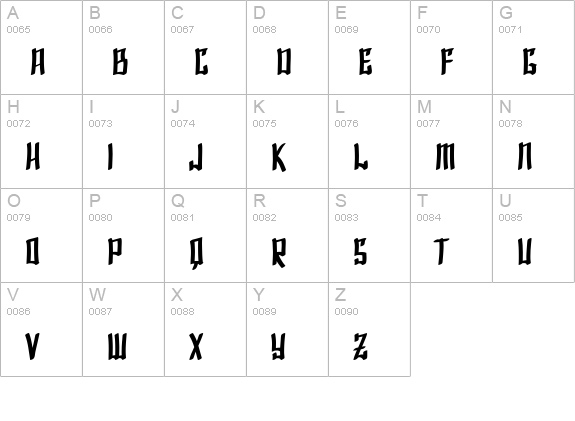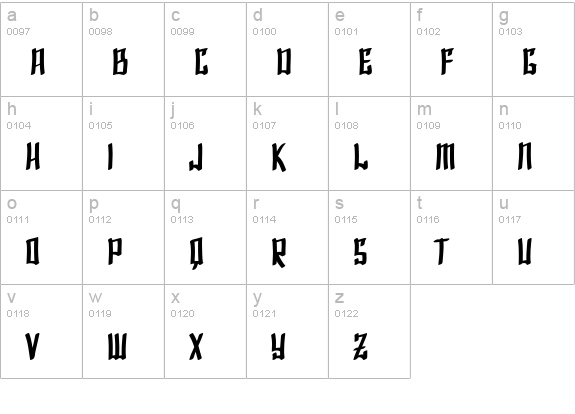
SF Shai Fontai Bold Font Details
SF Shai Fontai Bold is a strong, high-contrast variant in the SF typeface family \xE2\x80\x94 well suited to headlines, attention-grabbing titles, and strong calls-to-action.
Introducing SF Shai Fontai Bold, a captivating and versatile typeface that is sure to make a bold statement in any design project. With its distinctive and modern look, this font exudes confidence and sophistication, making it perfect for headlines, logos, branding, and more. SF Shai Fontai Bold features clean lines, strong letterforms, and an overall sleek appearance that will instantly grab attention. Its bold weight adds depth and impact to any text, ensuring maximum readability and visual impact. Whether you're designing a poster, website, or packaging, this font will effortlessly elevate your design to the next level. One of the best parts about SF Shai Fontai Bold is that it is completely free to download. Yes, you heard that right – this amazing font is freely available at FontsMarket.com. Say goodbye to expensive font licenses and hello to creative freedom. With SF Shai Fontai Bold, you can use it in personal and commercial projects without any limitations or restrictions. Designed with utmost precision and attention to detail, SF Shai Fontai Bold is a true masterpiece that will enhance any typography-driven design. Its versatility allows it to be used in various contexts, from fashion and beauty to technology and gaming. The possibilities are endless! So why wait? Get your hands on SF Shai Fontai Bold today and unlock a world of design possibilities. Download it for free at FontsMarket.com and let your creativity soar. Stand out from the crowd and leave a lasting impression with this remarkable font.